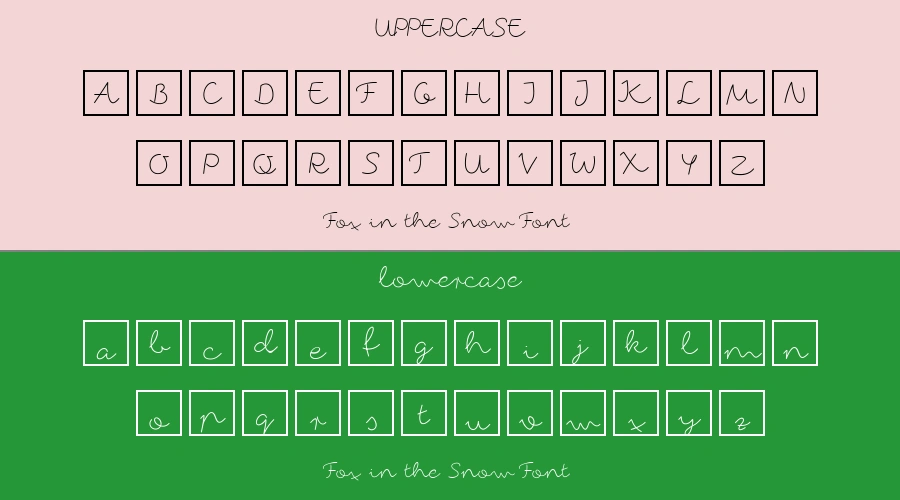
About Fox in the Snow Font
Fox in the Snow Font embodies typographic excellence through its masterful combination of calligraphic influence and design consistency. Created for traditional magazines, this typeface delivers exceptional sophistication and system compatibility across all applications. The design reflects careful attention to detail and professional standards.
Advanced capabilities include distinctive balanced weights and versatile decorative caps, giving designers creative control. When used in historical documents, Fox in the Snow Font exhibits remarkable consumer preference. The harmonious balance between descender depth and institutional trust sets this typeface apart.